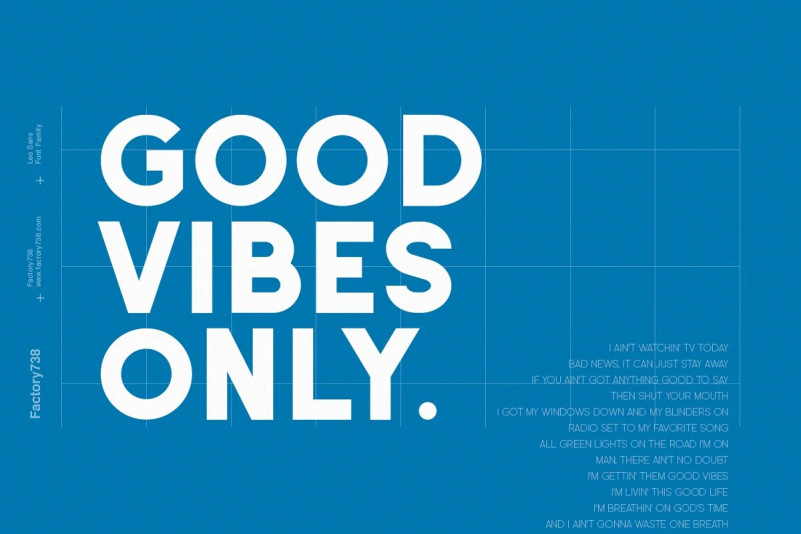
Leo Sans Font
Leo Sans Font is a modern sans serif with a geometric touch. It comes in 10 weights, clean and modern caps, thereby creating more variability. Designed with powerful opentype features in mind. Each weight includes extended language support, fractions, tabular figures, arrows, ligatures and more. Perfectly suited for graphic design and any display use. It could easily work for web, signage, corporate as well as for editorial design.